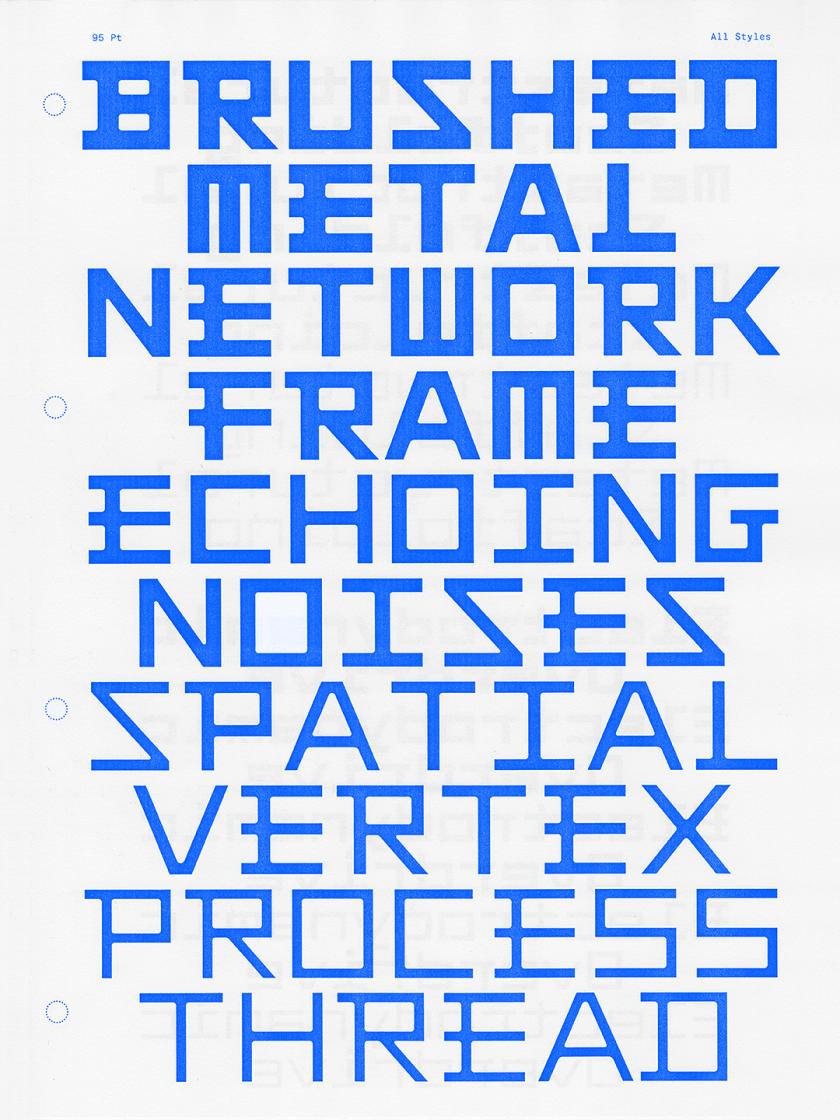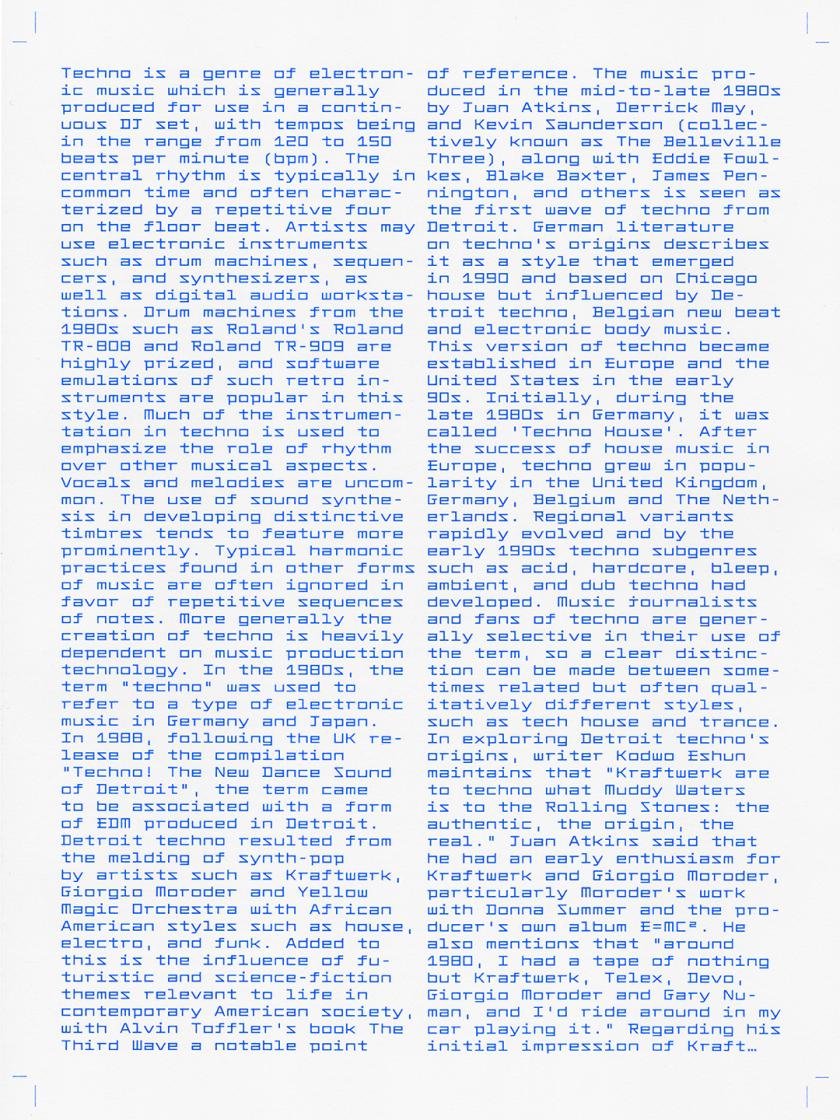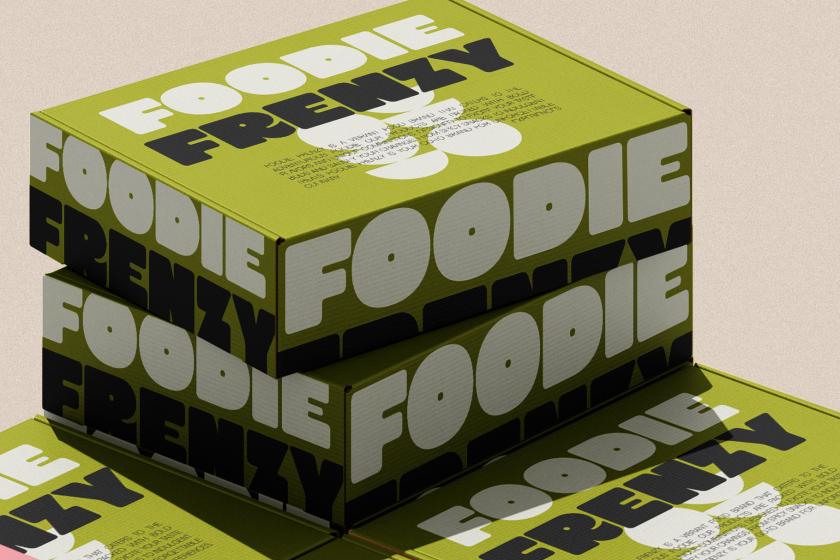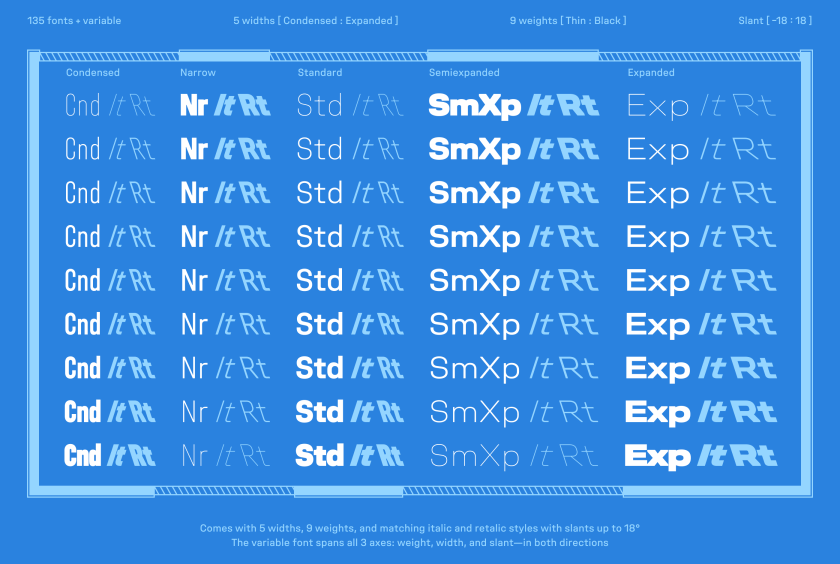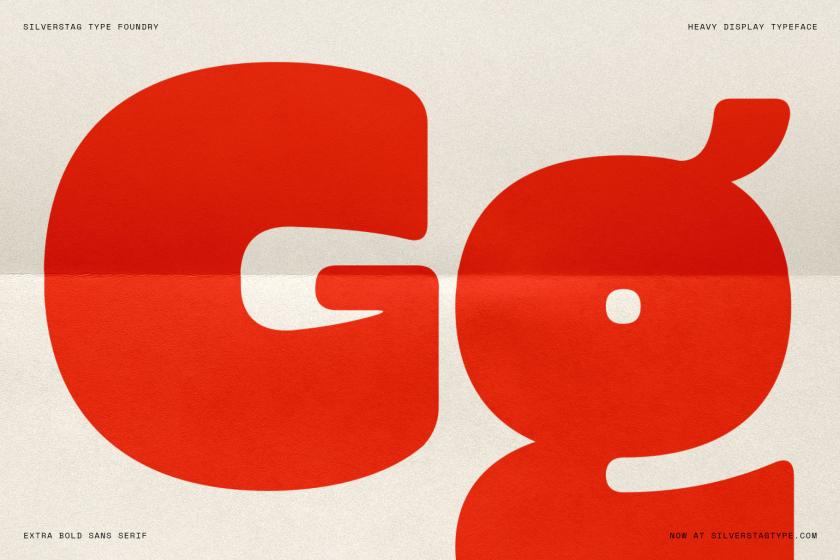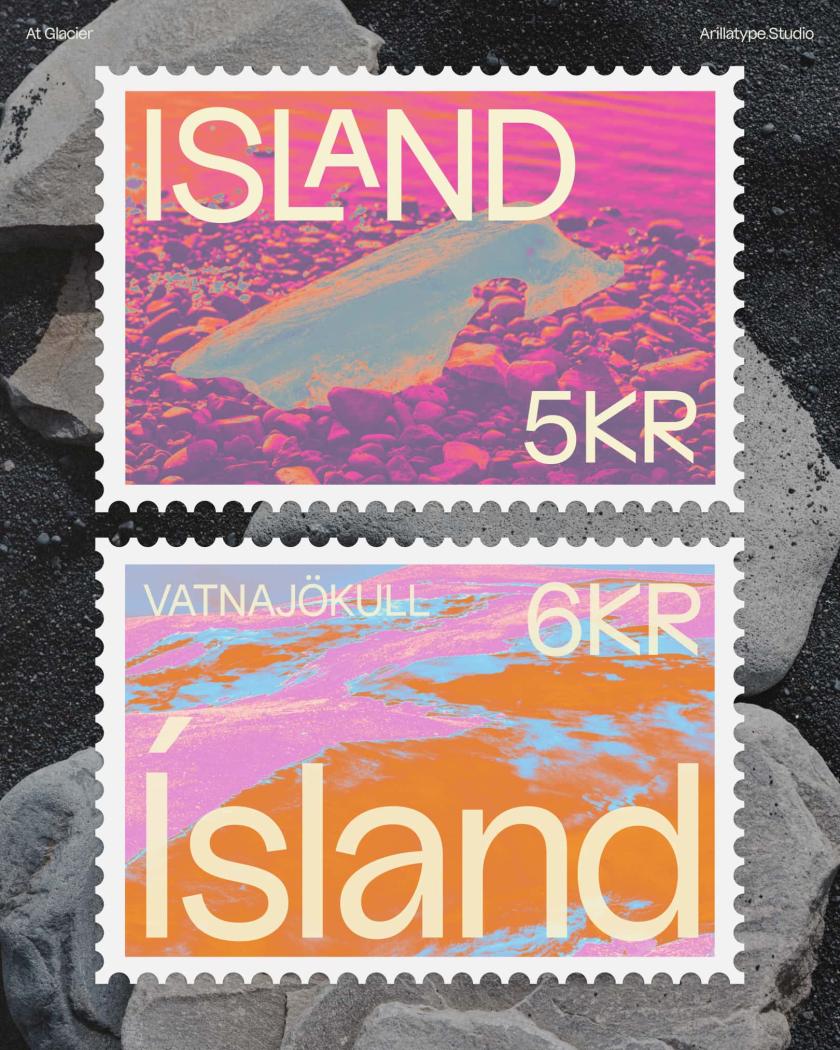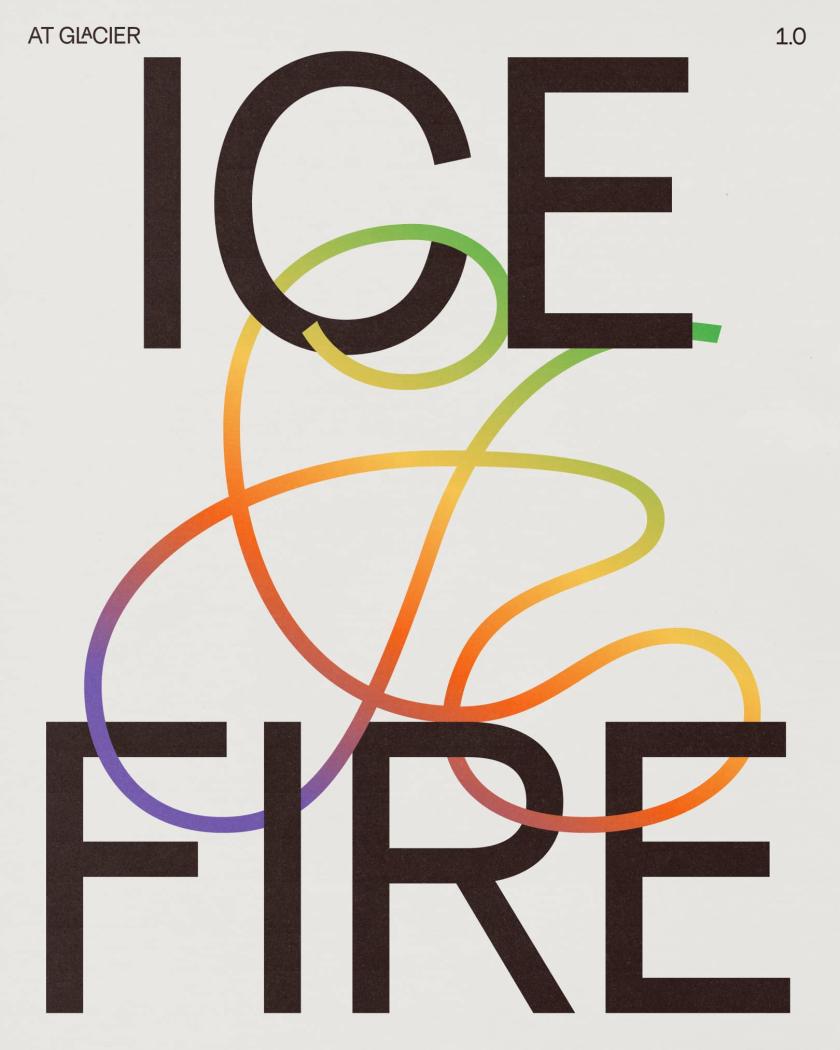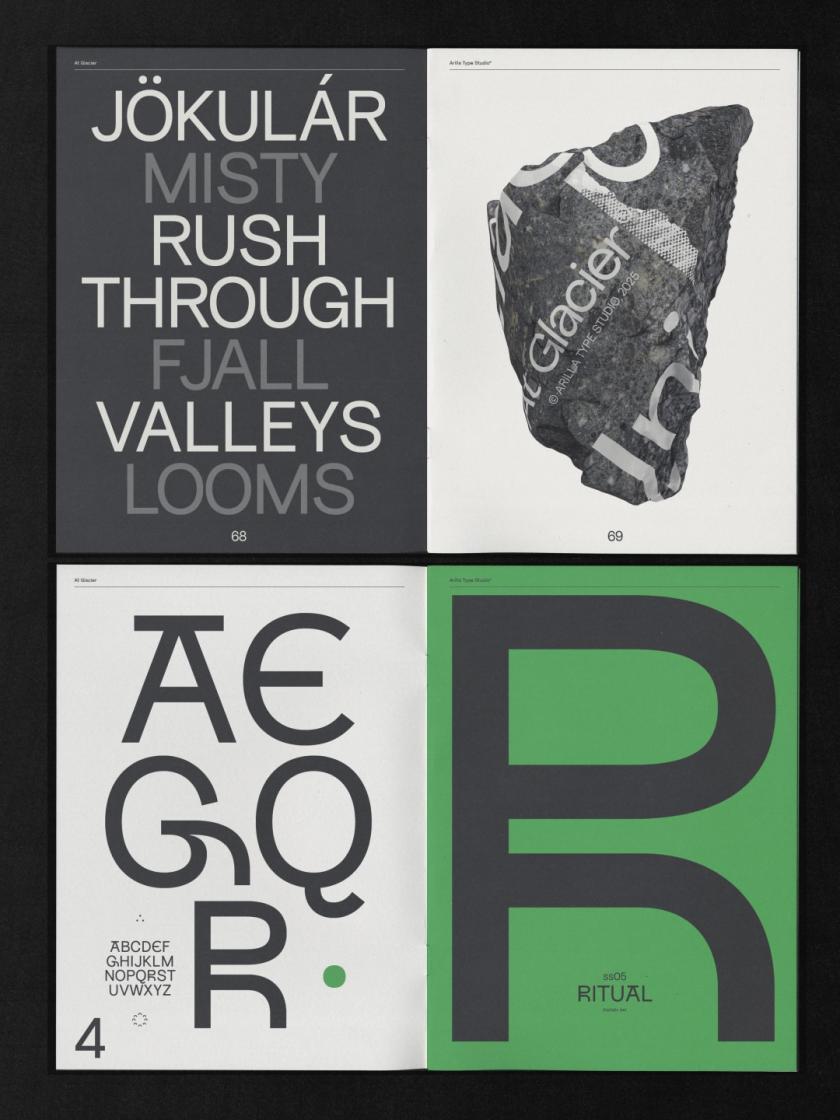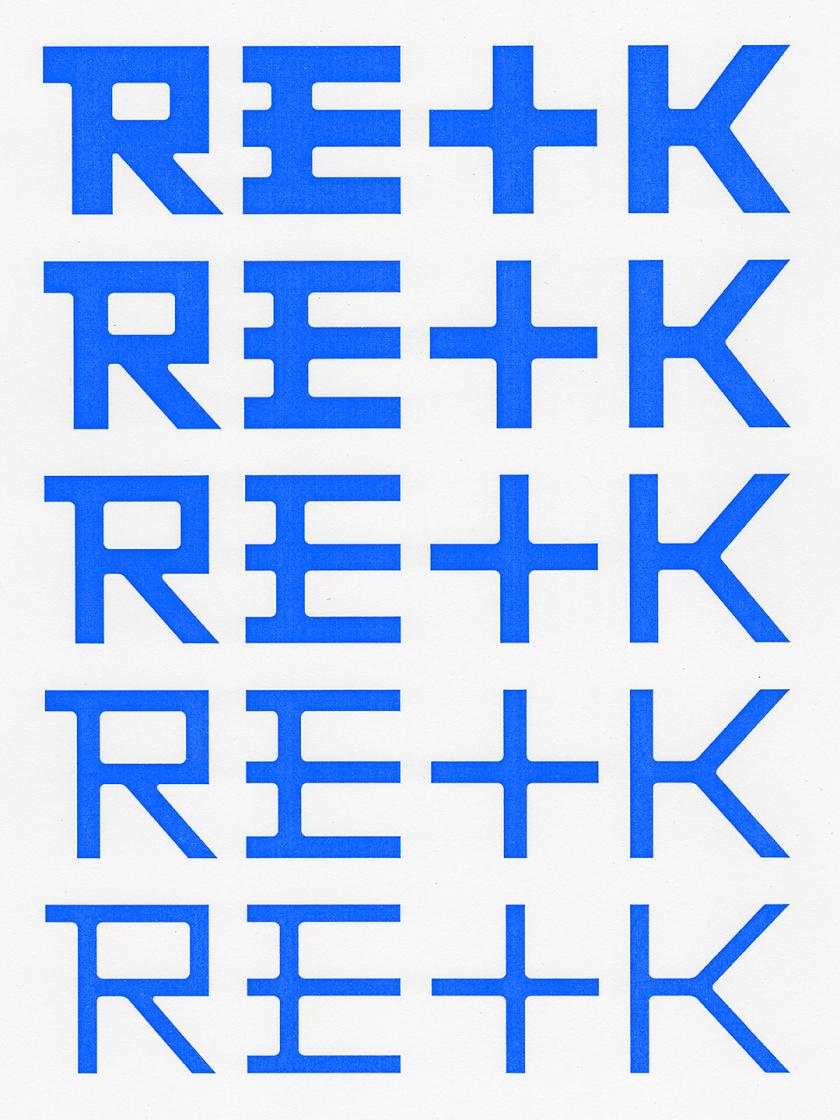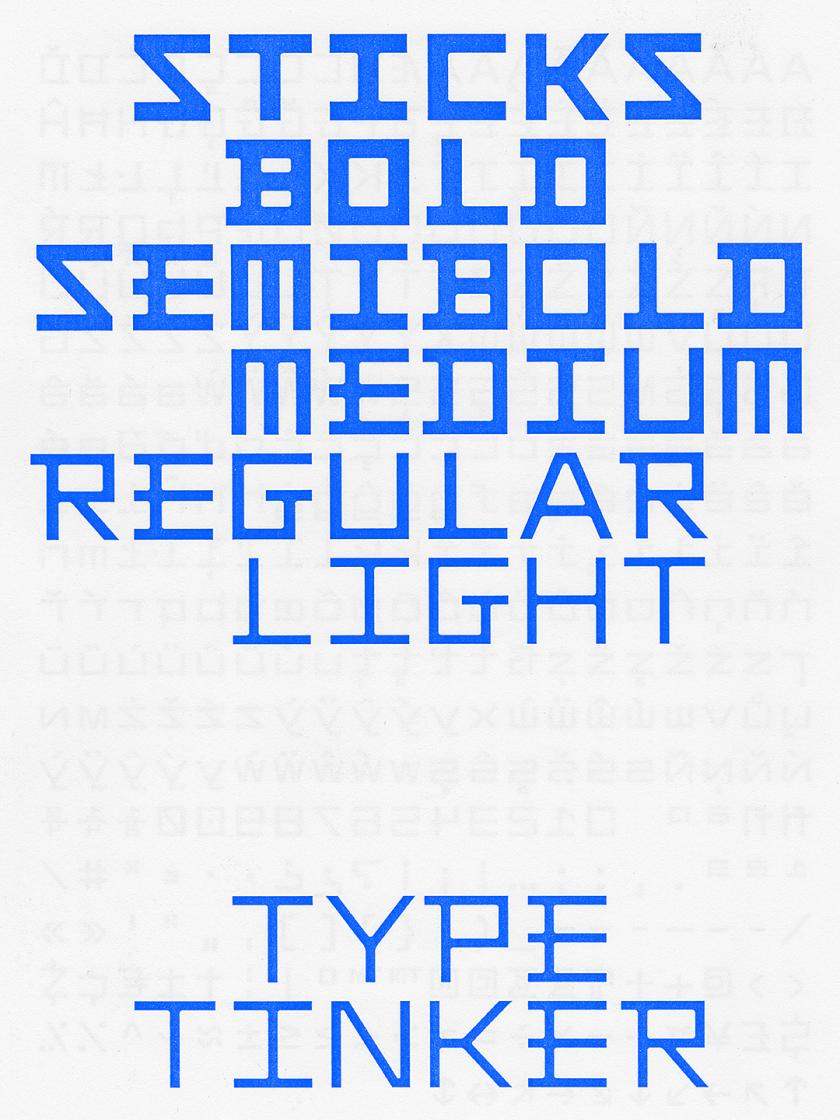
At Glacier by Omar Careaga
For all you graphic designers out there, we’ve rounded up the latest big releases from foundries across the planet. From display fonts to classic serifs and a family inspired by Iceland’s wild landscape, June’s offering is so good that some might end up in your current projects.
There’s something about midsummer that seems to bring out the best in type foundries and designers. Maybe it’s the long days. Maybe it’s a rush of projects finally being signed off on. Whatever it is, June has an unusually rich crop: revivals lovingly reworked, stencils that break their own rules, and display faces with enough presence to fill a poster that could be seen from space. Well, perhaps not. But you get the picture.
What I love about this month’s haul is the sheer range. This is creativity at its finest. There are monospaced workhorses built for important data, dashboards and tidy code. We have warm wedge serifs that nod to mid-century America. There’s even a display face carved straight out of Iceland’s volcanic landscape.
Whether you’re after something quiet and dependable or loud and unapologetic this June, Creative Boom has you covered. So grab a brew, settle in, and see which of the following typefaces make their way into your next project.
Sticks by Nguyen Gobber
Sticks is a monospaced typeface built from rectangular shapes with rounded inner corners, reminiscent of reinforced joints in precision-cut metal components. Its strict, rigid appearance follows the same visual language of construction, technology, and industrial machinery. Perfect for any branding projects in that field.
Originally released in 2019 and discontinued a few years later, the typeface was fully reworked, expanded, and re-released this month as a family of individual styles and a variable font. Nicely done, Nguyen Gobber.
Sahlia Stencil by Arcane Type Foundry
Introducing Sahila Stencil, the latest release from Arcane Type Foundry and an expansion of its existing typeface Sahlia, from a single weight to a 10-style family with true italics and a variable font that covers all styles.
Sahlia is a stencil typeface that breaks all the rules. Where most stencils slice away parts of the letters, Sahlia’s extreme contrast dissolves the thin parts entirely, as though worn away over time. The result feels both structured and organic: sharp, high-contrast serifs softened by delicate forms.
In the lighter weights, Sahlia has a graceful presence, while at its heaviest, it becomes more dramatic, yet it keeps its luxurious tone.
Designed for projects that want to make an elegant statement but with a little edge, Sahlia performs in editorial layouts, on luxury packaging, and across lifestyle content. Think candles, self-care, and slow living… that sort of thing.
Curo by Silver Stag Type
SLTF Curo is a super-heavy display sans-serif typeface designed for brands that want some serious presence. Built around a single extreme weight, Curo comes in five distinct corner-style variants: Sharp, Crisp, Regular, Soft, and Rounded, giving designers a complete tonal range within a single typeface family.
Each variant carries the same bold, unapologetic mass but shifts in character. From the hard-edged tension of Curo Sharp to the warm, voluminous fullness of Curo Rounded, the result is a complete design system of five fonts available with a single purchase.
Curo’s large x-height and tight counters make it exceptionally impactful at display sizes. A distinctive lowercase ‘g’, expressive curves, and an alternate single-story ‘a’ give it a personality that is both retro and unmistakably contemporary. Built for headlines, packaging, logos, posters, and anywhere a brand needs to take up space with total confidence.
Unifora by Yep! Type
Another bold statement for our June round-up is Unifora by Yep! – a massive sans-serif uniwidth superfamily with an industrial edge and architectural feel. “Unifora starts where DIN leaves off, taking the constructed logic of technical lettering and pushing it to meet the demands of modern screens, without softening the edges,” explains the foundry.
It comes with five widths, nine weights, and matching italic and roman styles with slants up to 18 degrees. The variable font spans all three axes: weight, width, and slant—in both directions. What’s more, the superfamily is available as five standalone sub-families, each built around the uniwidth principle… that is, within any given width, every glyph holds its advance width across all weights and styles. In practice, that means text never reflows when the weight shifts.
Unifora Condensed works for data-dense interfaces like dashboards, table columns and tight mobile layouts. Meanwhile, Unifora Narrow handles compact body copy and sidebars. Unifora Standard is the default width – comfortable with everything from small UI labels to large display. Then there’s Unifora SemiExpanded for display, signage and wide-format applications where letterforms need space to breathe. If all that sounds complicated, there’s a user manual to help you decide which is best for you.
Halvar Mono by TypeMates
Halvar Mono expands the Halvar universe by taking the next logical step: re-engineering Halvar’s “constructed forms, raw charm and machine precision” into a monospaced typeface.
With Halvar Mono, every character in each of its nine weights occupies the same width. Built on Halvar’s balanced, medium-weight, monospaced typeface, this version is practical and precise across data, tables, and technical systems; steady and dependable in demanding pixel- and print-based applications.
It has an industrial charm and mechanical design for those who value the structure and elegance of monospaced fonts. It includes extended Latin, Greek and Cyrillic and supports more than 190 languages.
Drika by Ana Laydner
Ana Laydner has released a new typeface that joins Fabio Haag Type’s exclusive library with a raw, real aesthetic. Letters might “overlap in a hug or collide in a mosh pit” – something that’s been compared to the happy chaos of real life. Figures.
With 14 weights of expressive goodness, Drika has strokes that aren’t overly polished and are inspired by the earliest sans serifs of the 19th century. Some diagonals end at an unexpected angle, while others have straight forms.
Emojis of all kinds are sprinkled in along with arrows, and that character comes with every weight of the family. In the heaviest weights, some letters might overlap, and that’s ok. It’s a sans “unafraid of being”, according to Ana. She adds: “Drika is a typeface about presence, about occupying spaces without apology”. For those of you feeling rebellious this month, we think you’ll love how this one breaks all the rules.
Beth by Alexis Navarro & Latinotype
Beth caught our eye this month, as it draws on early-twentieth-century English shopfront lettering: a tradition built to stop people in their tracks. Its uppercase draws on Neoclassical type with humanist terminals and convex strokes inspired by hand-painted signage, giving each capital a brightness and precision that feel both nostalgic and modern.
The lowercase follows the calligraphic model of Edward Johnston’s Foundational Hand: curves that modulate close to 45 degrees, a single-story ‘a’ with no traditional terminal, and an ‘s’ that, in the designer’s own words, is a poem.
The drawing carries the weight of engraving, particularly the work of Gustave Doré and William Blake. Their influence lives in Beth’s fine strokes and the richness of its contrast: a typeface that, according to its maker, holds light and shadow the way a copper plate does – “dark where it counts. Bright where it matters”.
A pop gothic serif, if we ever saw one, Beth comes with seven weights, from light to black – each with a standard and alternate character set, plus 594 glyphs and discretionary ligatures.
La Mericana by Elena Genova of My Creative Land
La Mericana is a vintage-yet-modern type family inspired by Richard Isbell’s Americana, originally designed in 1965 for American Type Founders. It builds on the same qualities that made it a distinctive voice in mid-century American typography : warmth, wedge serifs, and generous x-height  –  and reimagines them for contemporary use.
Nostalgic of classic signage and retro branding, it features a new italic with calligraphic details, adding movement and elegance without losing the family’s confident, approachable tone.
La Mericana’s large x-height and open proportions keep it legible in tightly set lines. The condensed version preserves the original’s distinctive look while making it ideal for branding, editorial, packaging, and compact digital formats, such as  Instagram posts, reels, and stories… basically anywhere that needs impact in a small space.
At Glacier by Omar Careaga
At Glacier is a display typeface inspired by Iceland’s raw landscapes. Bold yet refined, it combines sharp structure with flowing forms to create a distinctive and expressive typographic voice. Those famous volcanoes and wild rock formations have clearly made their mark here.
As Arillatype Studio puts it: “Ice-cold elegance with glacial flow” and “a natural grotty, carved by instinct”. You could say this typeface is untamed with its unexpected twists and turns. But you’ll be glad to know, it’s entirely legible and probably our favourite of the bunch this month.
The family includes over 1,000 glyphs, featuring extensive alternates, ligatures, numerals, symbols, arrows, dingbats, and advanced OpenType features. Brought to you by uber-talented graphic designer and printer Omar Careaga.